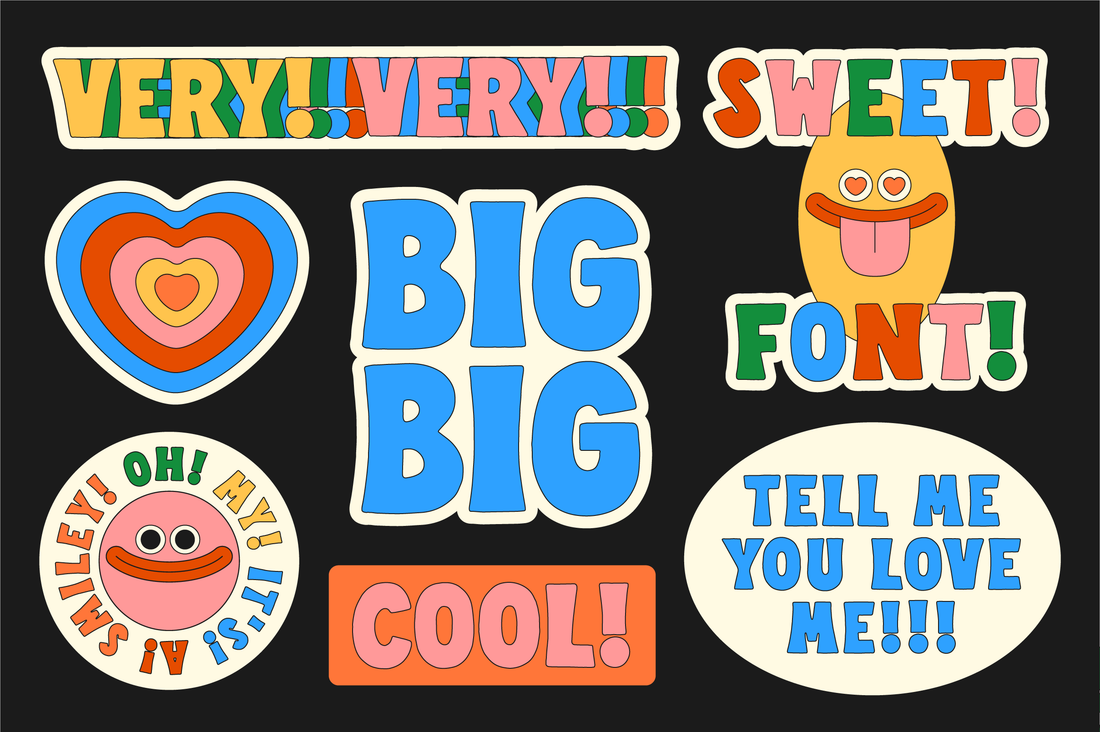
Best Hand-Drawn Fonts for Sticker Design
Stickers live or die on personality. It's a small shape someone either wants to slap on their water bottle or scroll straight past, and a hand-drawn, bubbly font can carry a lot of that personality on its own, before you've even added an illustration around it.
What Makes a Font Work for Stickers Specifically
Stickers get viewed small and close up, on a laptop lid, a notebook, a phone case, so a font needs to read clearly even when it's a couple inches wide. Bubble and bold hand-lettered styles tend to hold their shape well at that size without losing character, and medium-weight fonts work well too, just steer clear of anything too thin, since fine details can disappear once a design shrinks down (But, like I always say, rules are meant to be broken, a tiny thin font may be good if that's the look and feel you need.). If a sticker is type only, mixing two different styles can add contrast or emphasis to a phrase and make the design more interesting, my font pairing guide has more on combining two fonts well if you want a starting framework. And if you're pairing type with an illustration, aim for balance, the font and the art should support each other rather than compete for attention.
Fonts Worth Trying for Stickers
Very Font Family: Retro, Warm, Not Bubble
Very Font Family mixes retro charm with a modern handmade feel, each letter drawn by hand to capture a friendly, personal warmth. Comes in 4 styles you can mix and match: Big, Tiny, Big Bottom, and Big Top.
Best for
Stickers that want vintage, hand-lettered warmth.
Quirkie: Chunky, Graphic
Quirkie is bursting with imperfect, handmade charm, a chunky, odd-contrast style with a playful, quirky vibe and big personality.
Best for
Stickers that want a chunkier, more graphic look without going round or bubbly, big personality that doesn't need to look soft.
Puffie: Bold, Rounded, Full of Charm
Puffie is a hand-lettered bubble font with rounded shapes and unique edges, built for designs that want extra joy without overthinking it.
Best for
Stickers that want to feel fun and instantly likable, quotes, small logos, anything meant to make someone smile before they read it.
Dottie: Stylish, Laid-Back, Still Bubbly
Dottie is inspired by lots of inky dots, with a quirky vibe that's both stylish and laid-back. Every letter is drawn individually with alternates for extra customization.
Best for
Stickers with a slightly more grown-up, stylish edge, still playful, just a little less loud than a full bubble font.
Goops and Goops Outlines: Y2K, Textured, Nostalgic
Goops is a Y2K-inspired bubble font with a genuinely "goopy," textured quality. Its outline companion, Goops Outlines, works especially well layered over an illustration or photo, since the outline style doesn't block what's underneath.
Best for
Sticker sets going for a nostalgic, early-2000s vibe, or a more hand-drawn doodle feel.
Kooky Cloud: Playful, A Little Wild
Kooky Cloud is made for "optimum kookiness," oddly bubbly with alternate letterforms built in for extra character.
Best for
Stickers that want to stand out with a bit of chaos, quotes and titles that shouldn't look too composed or tidy.
Smoothie: Bold, Wiggly, Energetic
Smoothie brings wiggly edges and smooth curves together for a playful, bold vibe that still reads clean at a glance.
Best for
Stickers that need to feel energetic and a little in motion, without tipping into full bubble territory.
Designing Stickers That Actually Get Used
A sticker only works if someone actually wants to put it somewhere. Bold, legible type paired with a shape or color that pops helps a lot, and a good font should support your design or illustration rather than compete with it.